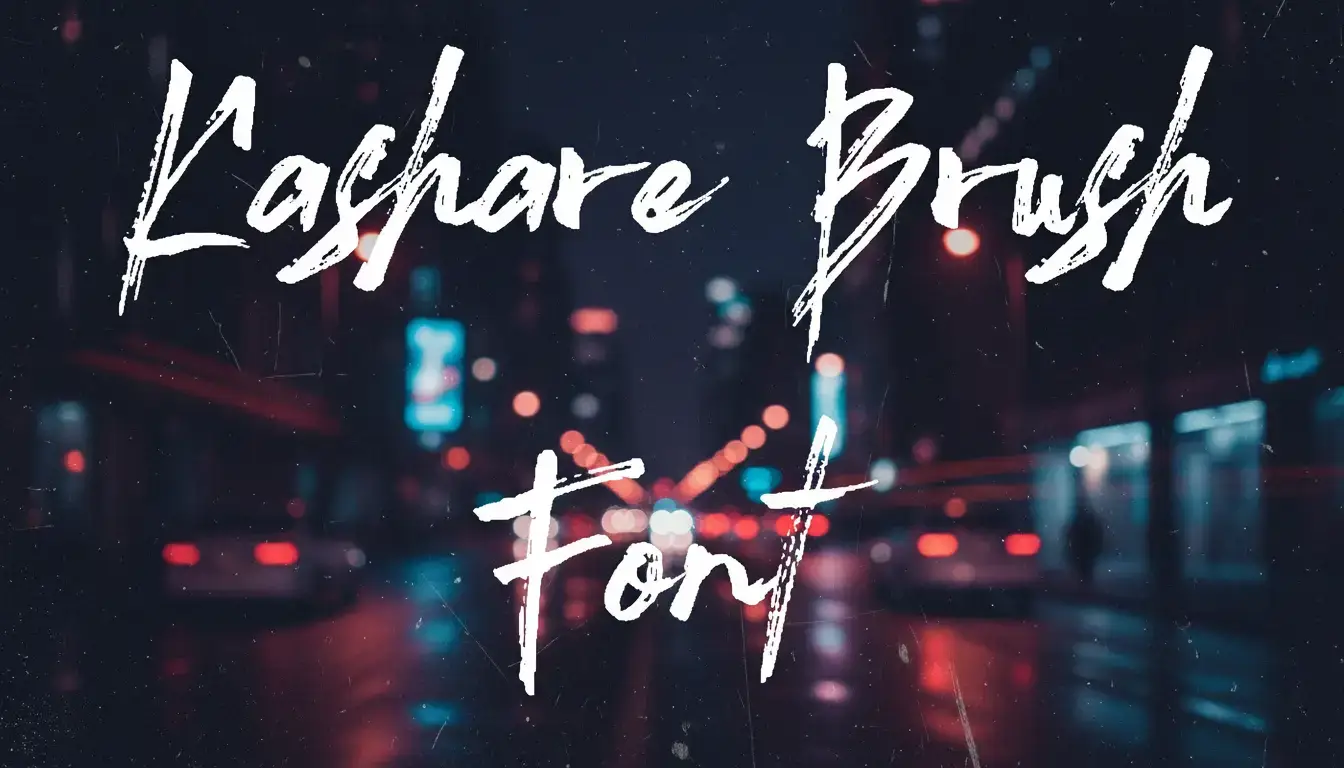
Kashare Brush Font
Kashare Brush is a script font created by ali sifak muftari and released through Liarttype. The letters have the smooth movement of real pen lettering, which is why even a single name looks special in it. It's a free download, and you can try it with your own text in the preview above first.
Kashare Brush Font Details
- Designer: ali sifak muftari
- Publisher: Liarttype
- Glyphs: 207
What You Can Type With Kashare Brush
You get every letter from A to Z in both cases and all the numbers from 0 to 9, which means Kashare Brush can handle full sentences, dates and prices. Common punctuation such as &, !, ? and @ is included as well. It also has the accented letters you need for Spanish, French, German, Portuguese and Italian.
Where Kashare Brush Works Best
Kashare Brush is a natural fit for wedding invitations, logos and signature-style headings. Script fonts read best in short bursts, so keep it to names, titles and one-line quotes. Skip all caps: script capitals are drawn to start a word, not to fill one.
Does Kashare Brush support accented letters?
Yes. Kashare Brush includes the accented letters needed for Spanish, French, German, Portuguese and Italian, so it works for more than just English.